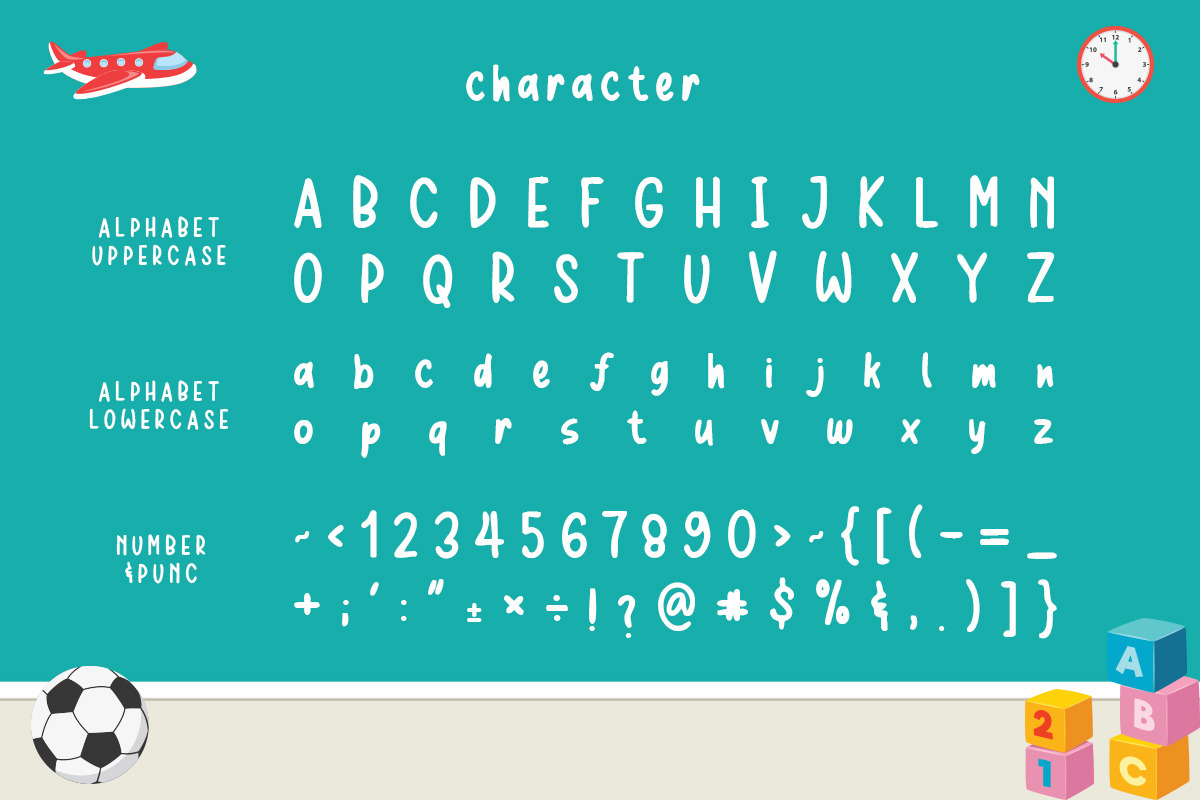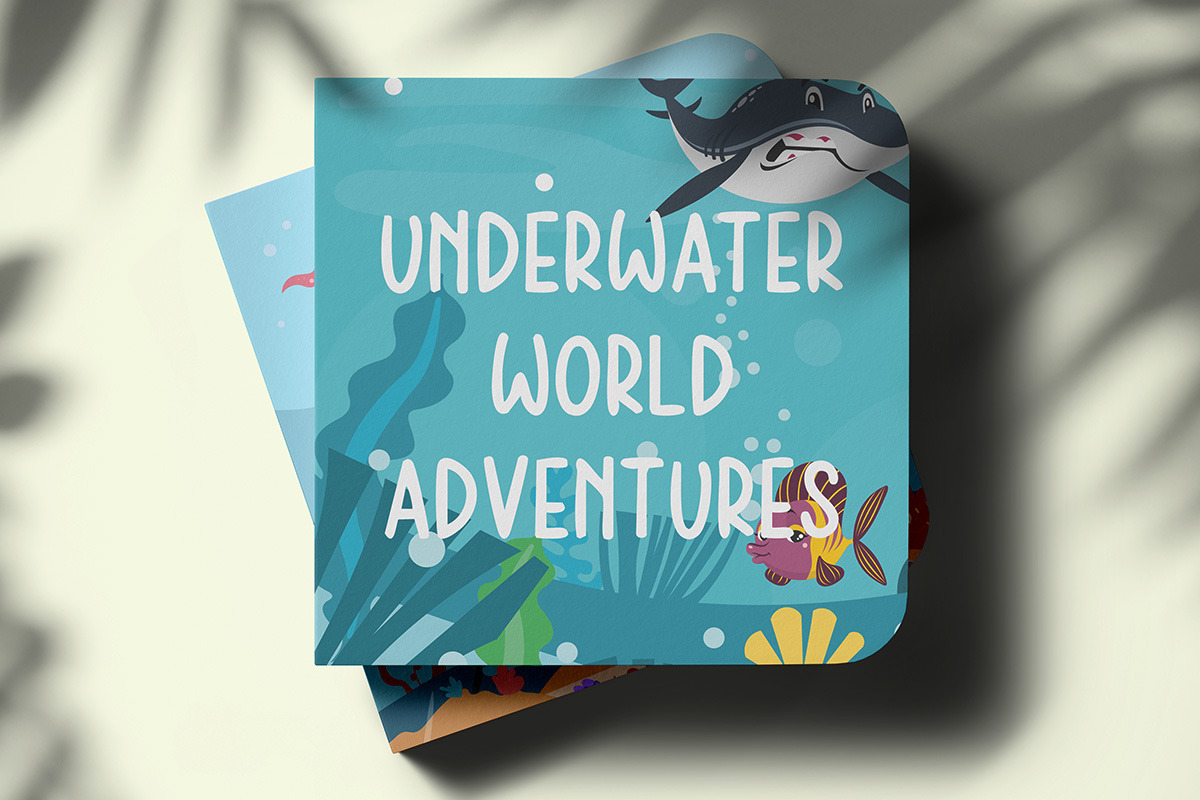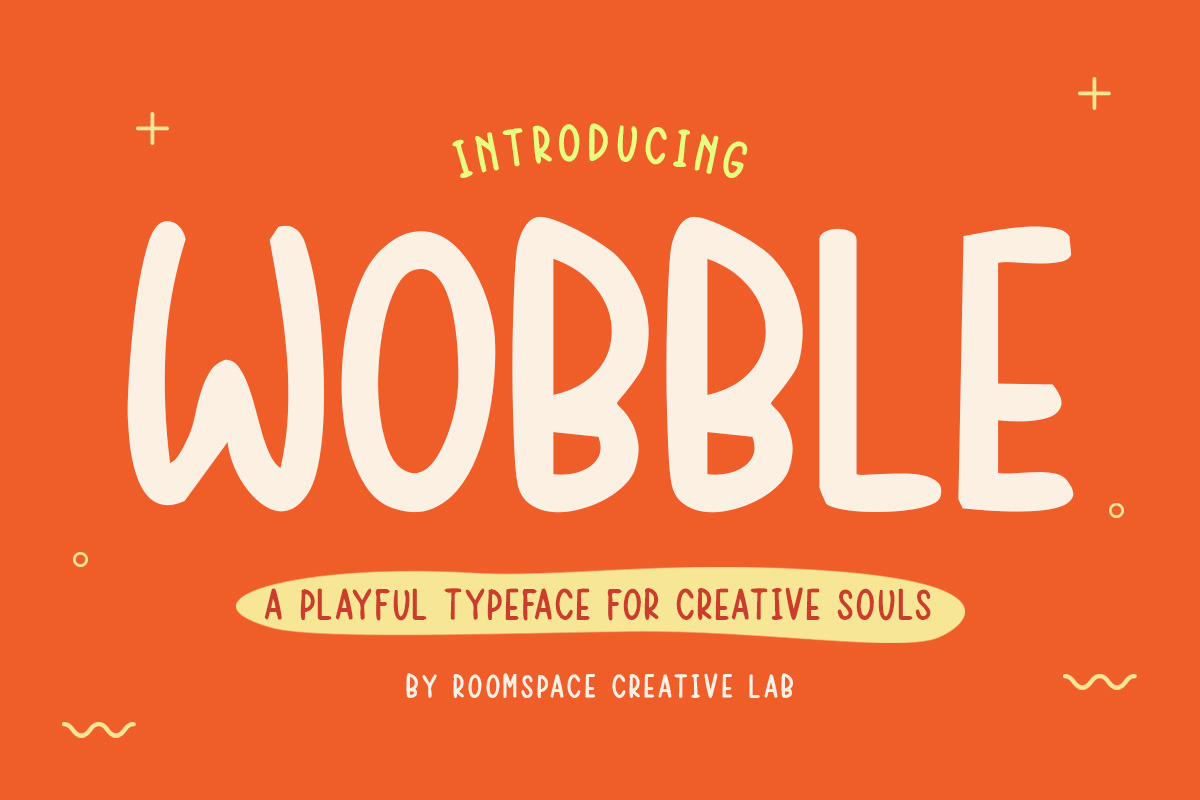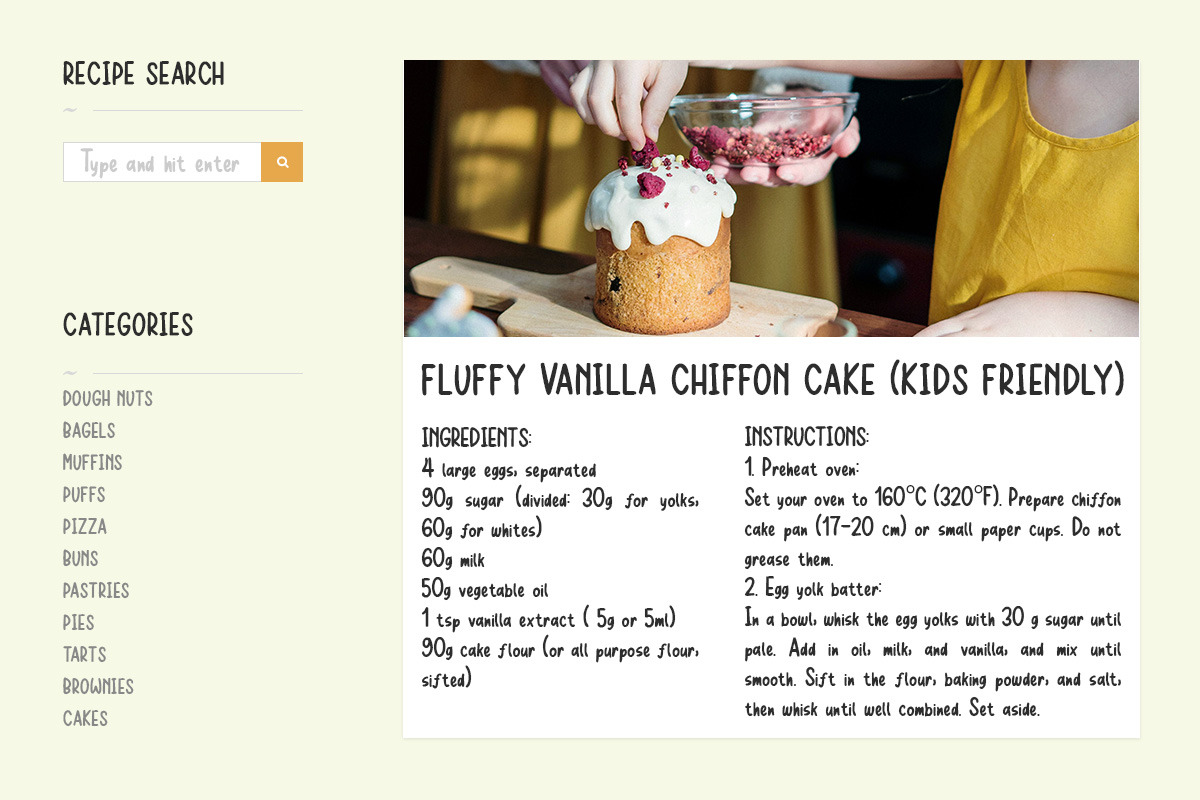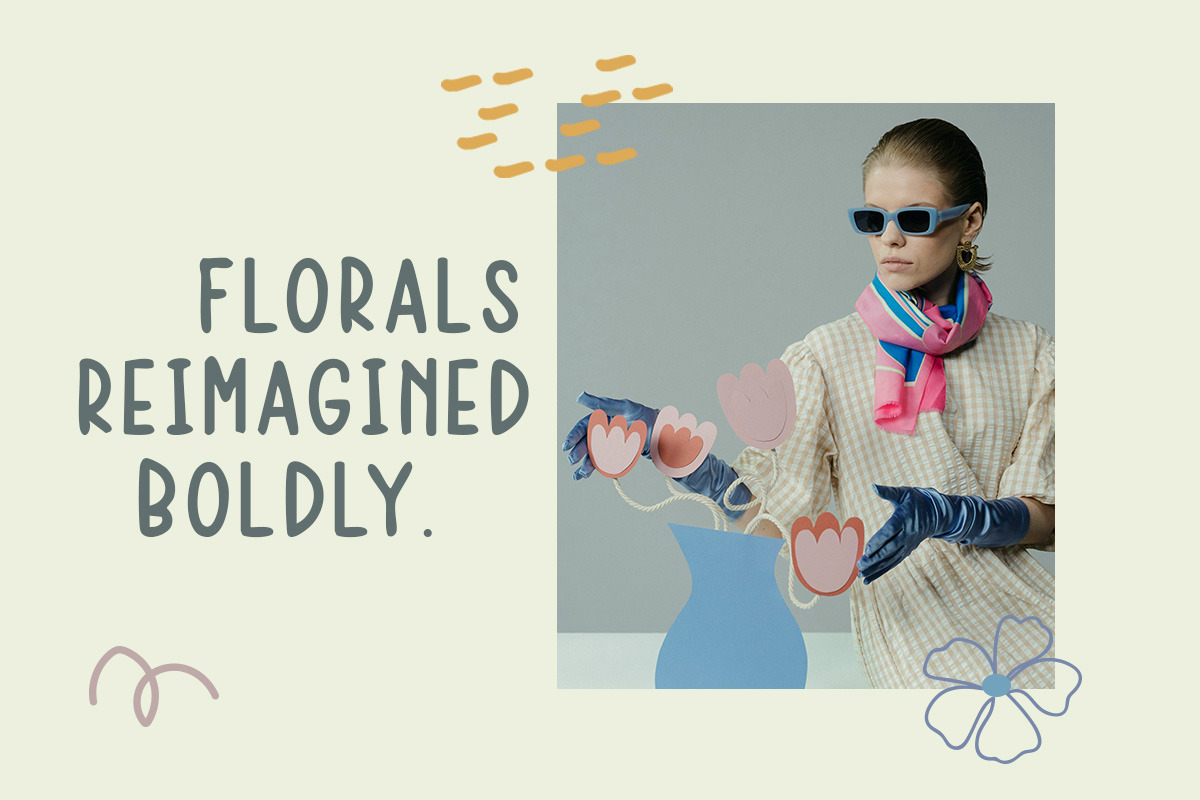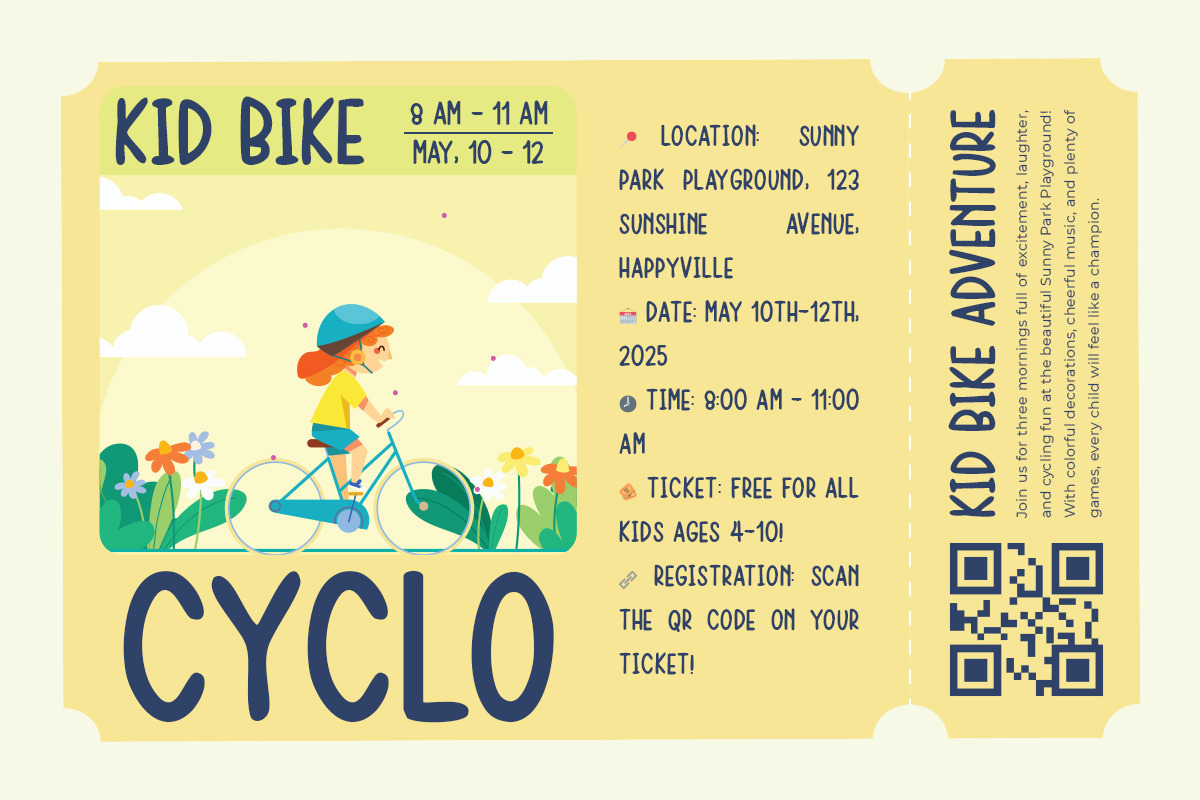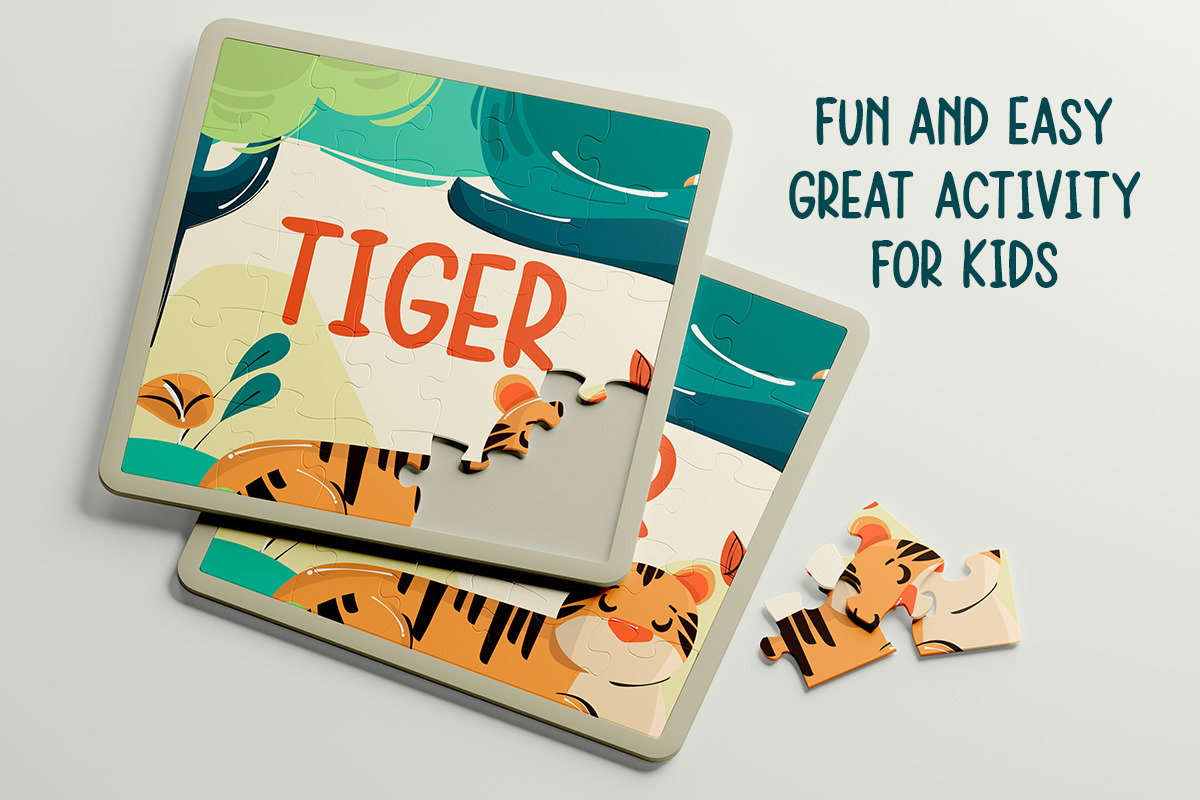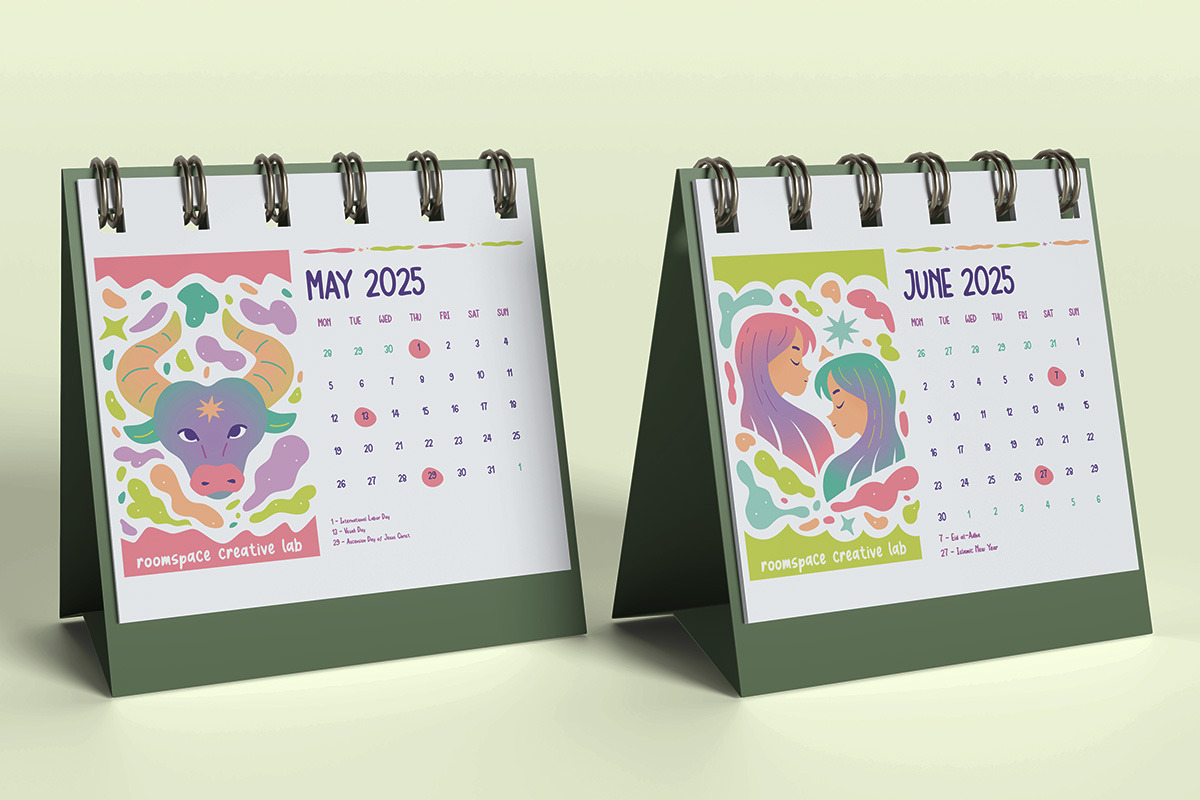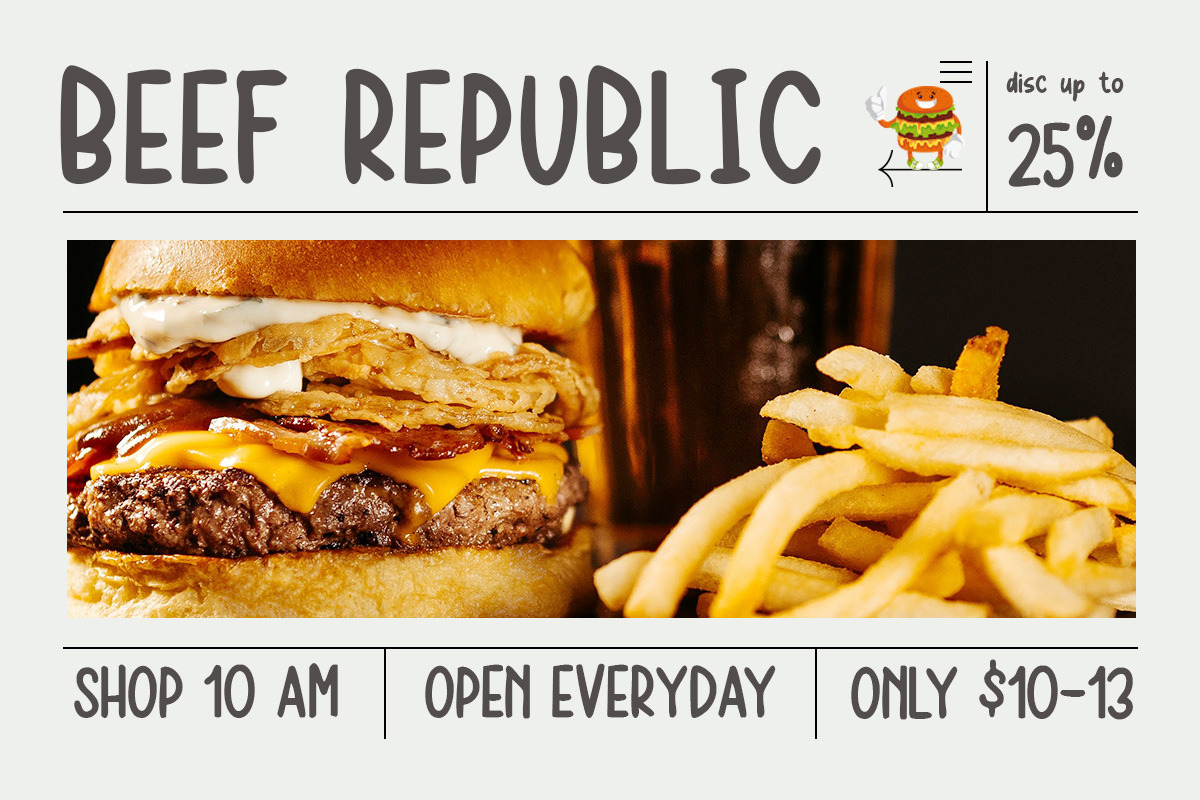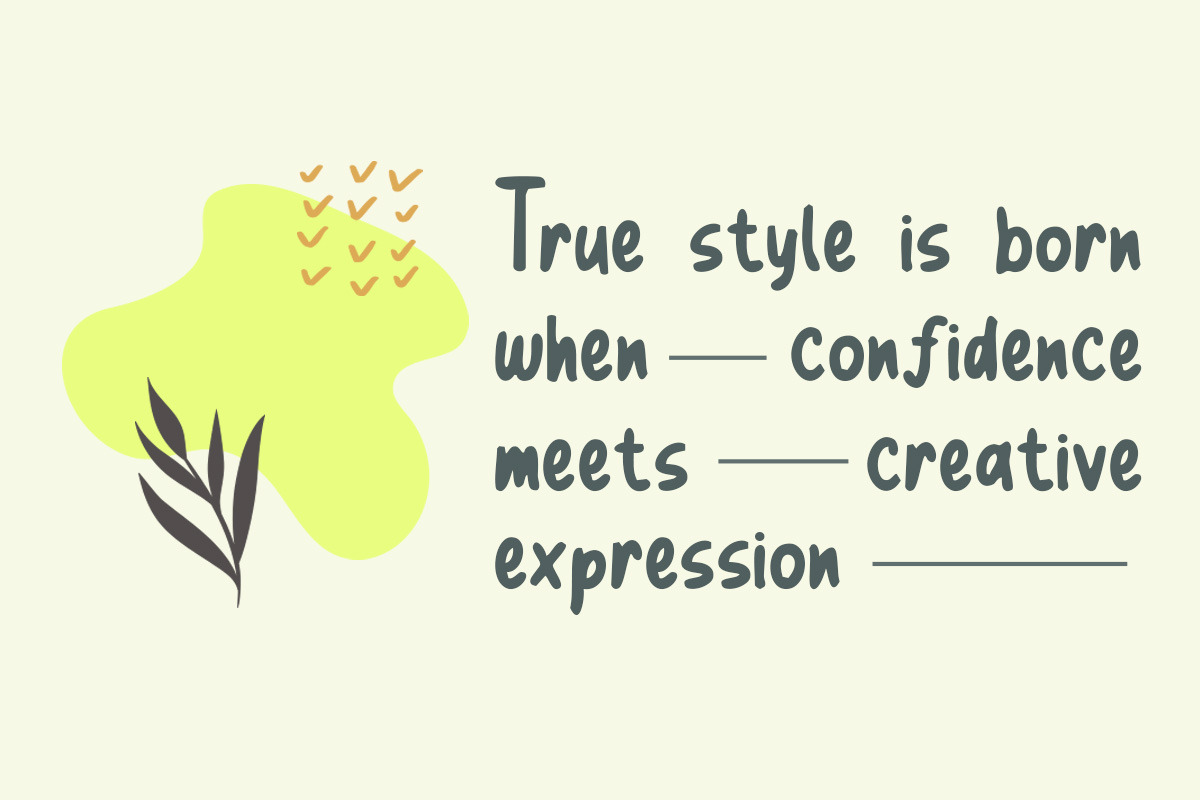
Wobble Playful Funny Comical Font
Wobble is a joyful, handwritten typeface crafted to bring charm and imagination into every corner of your design. It radiates youthful energy and is perfect for kid-centric branding, playful packaging, fun editorial layouts, or anything in need of a light-hearted, expressive voice. Its strokes are softly irregular with a handcrafted structure that feels warm, personal, and approachable—without being messy or chaotic. This balance gives Wobble its signature appeal.
Designed with rounded forms and bouncy rhythm, Wobble’s letterforms mimic the whimsical imperfection of handwriting, adding authenticity to any visual. The font thrives in projects that need emotional warmth and playful spontaneity, such as children’s books, educational products, creative menus, boutique packaging, and seasonal campaigns. Whether in a banner ad or printed toy box, Wobble instantly humanizes your message and draws in a family-friendly crowd.